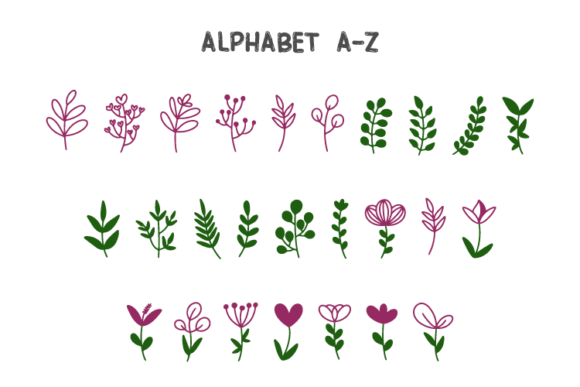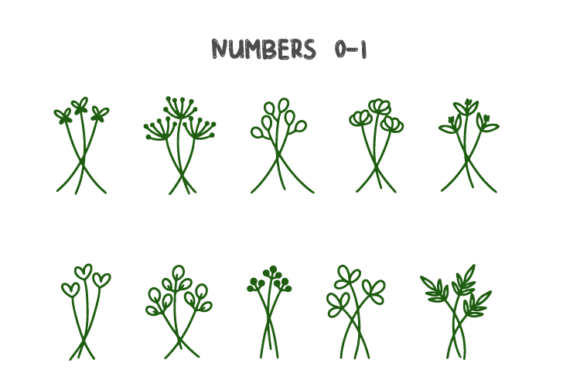
Introducing Flow Font: The Colorful Floral Dingbat Font You Need for Your Designs
Are you a designer or crafter looking for a unique and eye-catching font to elevate your projects? Look no further than Flow Font, a stunning floral dingbat font that is sure to add a pop of color and personality to your designs. In this article, we’ll dive into the world of Flow Font and explore how you can use it to create spectacular designs that stand out from the crowd.
What is Flow Font?
Flow Font is a one-of-a-kind, colorful floral dingbat font that is perfect for adding a touch of elegance and whimsy to your designs. This font is made up of beautiful, intricate floral illustrations that are sure to delight and inspire. With Flow Font, you can add a splash of color and personality to your projects, making them truly unforgettable.
What Makes Flow Font So Special?
So, what sets Flow Font apart from other fonts on the market? Here are just a few things that make it so special:
- Unique and colorful illustrations: Each character in Flow Font is carefully crafted to be a beautiful, colorful illustration of a flower or floral element. This means that your designs will be instantly eye-catching and engaging.
- High-quality design: Flow Font is designed with precision and attention to detail, ensuring that every element is crisp and clear, even at small sizes.
- Versatile: Flow Font can be used for a wide range of projects, from invitations and greeting cards to social media graphics and branding materials.
How to Use Flow Font in Your Designs
Now that we’ve covered what makes Flow Font so special, let’s talk about how you can use it in your designs. Here are a few ideas to get you started:
- Create stunning invitations: Use Flow Font to create beautiful, one-of-a-kind invitations for weddings, parties, and other special events.
- Add a touch of elegance to your branding: Use Flow Font to add a touch of personality and whimsy to your branding materials, such as business cards and letterheads.
- Make your social media graphics pop: Use Flow Font to create eye-catching social media graphics that are sure to grab the attention of your followers.
Tips and Tricks for Getting the Most Out of Flow Font
Here are a few tips and tricks to help you get the most out of Flow Font:
- Experiment with different colors: Don’t be afraid to try out different color schemes and combinations to see what works best for your design.
- Mix and match with other fonts: Flow Font pairs beautifully with other fonts, so don’t be afraid to experiment with different combinations.
- Use it sparingly: While Flow Font is certainly eye-catching, it can be overwhelming if used too much. Use it sparingly to add a touch of elegance and whimsy to your designs.
In conclusion, Flow Font is a unique and colorful floral dingbat font that is sure to add a touch of personality and whimsy to your designs. With its stunning illustrations and versatile design, it’s the perfect addition to any project. Whether you’re a designer or crafter, Flow Font is a must-have font that is sure to inspire and delight. So why wait? Download Flow Font today and start creating spectacular designs that stand out from the crowd!
- Unique and colorful floral illustrations
- High-quality design
- Perfect for designers and crafters